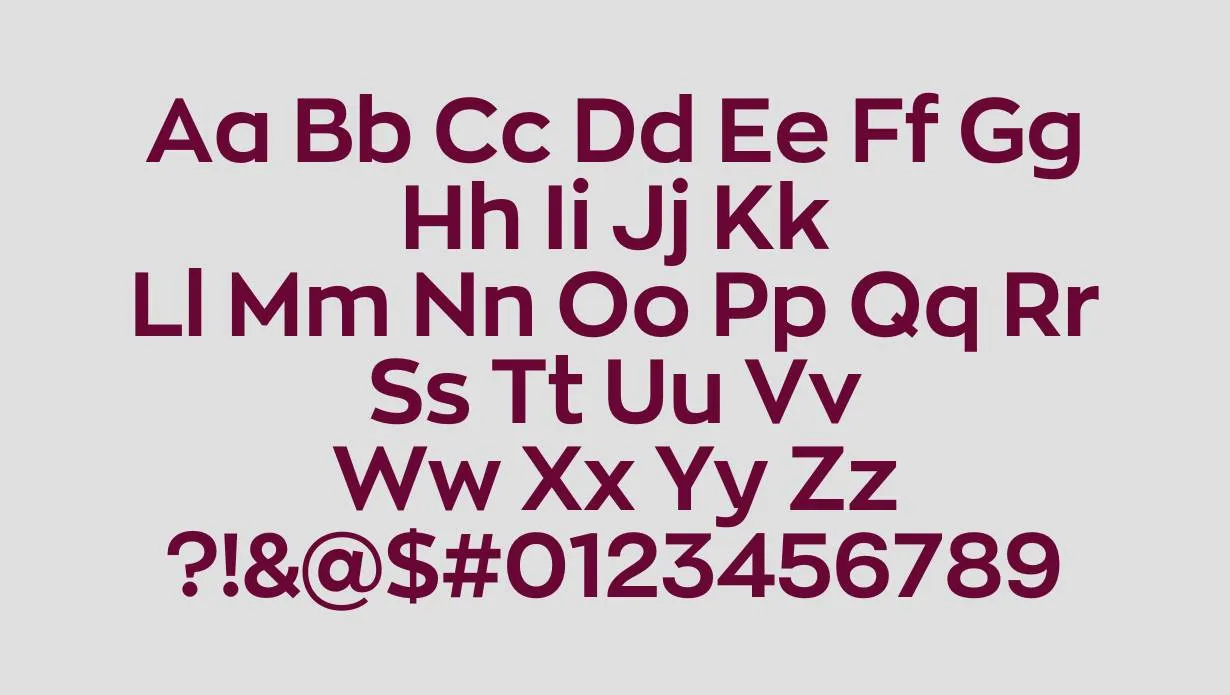
Zona Pro font is like a modern skyline for your words—sleek, stylish, and in tune with the times. When you use it, your text becomes like a trendy cityscape, capturing attention effortlessly.
| Name | Zona Pro Font |
| Designer | Kostas Bartsokas |
It’s perfect for creating contemporary designs or posters that need a touch of urban flair. Zona Pro’s letters are like skyscrapers, each one contributing to the overall modern vibe of your message.